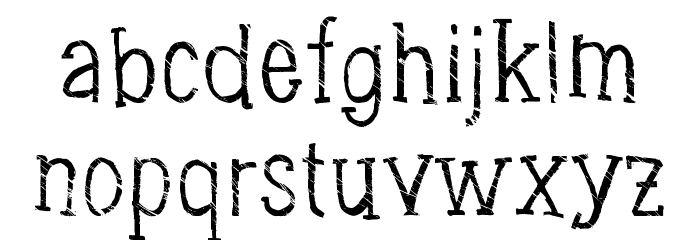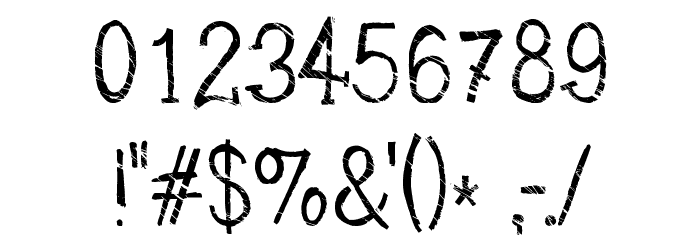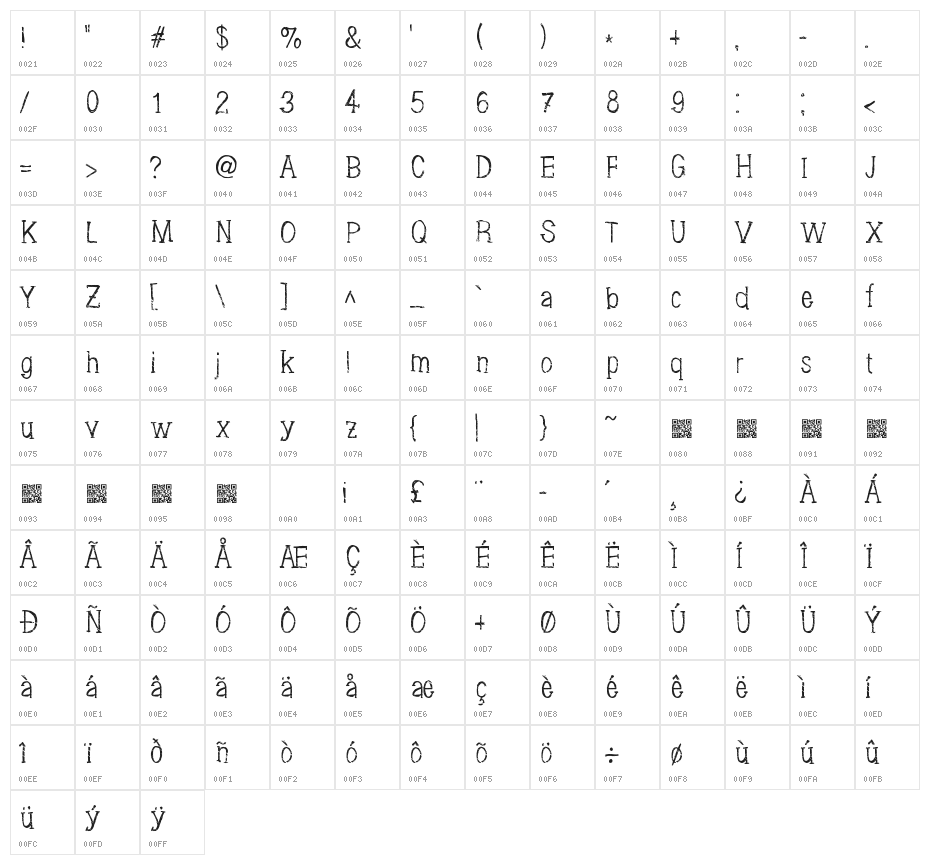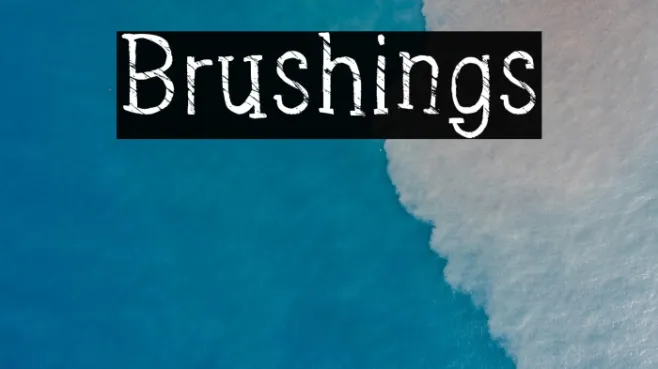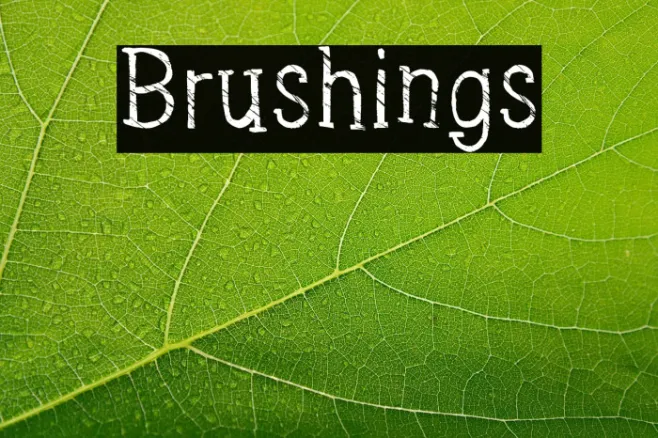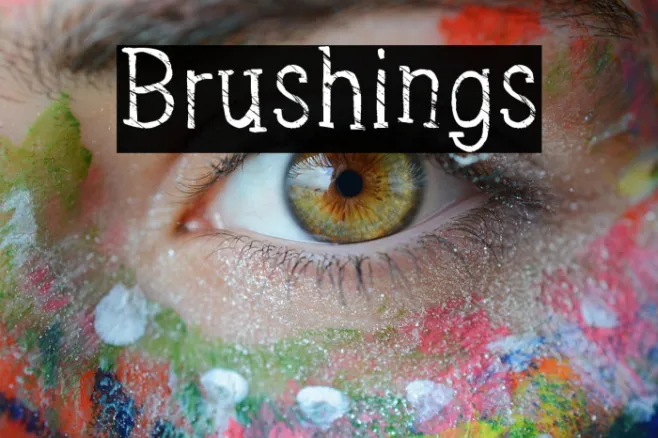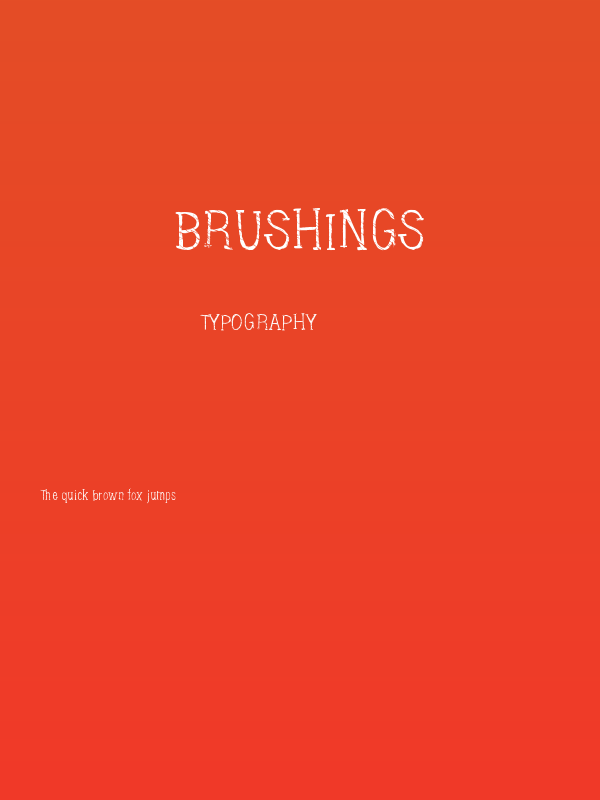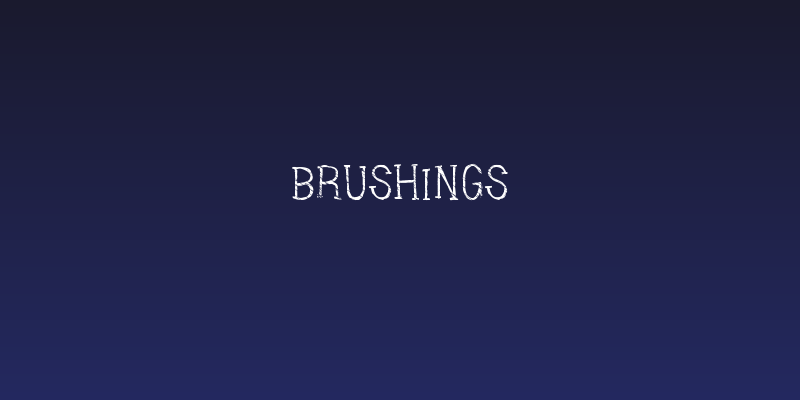
Brushings Font
This font features a distressed, textured appearance that mimics the look of brush strokes or worn paint. The characters have an uneven, hand-crafted quality, giving them a rustic and artistic feel. The uppercase and lowercase letters maintain a consistent style, with slightly irregular edges that enhance the font's organic and dynamic nature. The numbers and special characters follow the same aesthetic, ensuring a cohesive look across all text elements. This font is ideal for projects that require a creative, handmade touch, such as art posters, craft product labels, or any design that seeks to convey a sense of authenticity and individuality.
A textured, brush-stroke style font with a rustic, artistic feel.
- Proposed Projects: Ideal for art posters, craft product labels, and designs needing a handmade touch.
- Overall Style: Artistic, Rustic
- Use Case: Logos, Posters, Labels